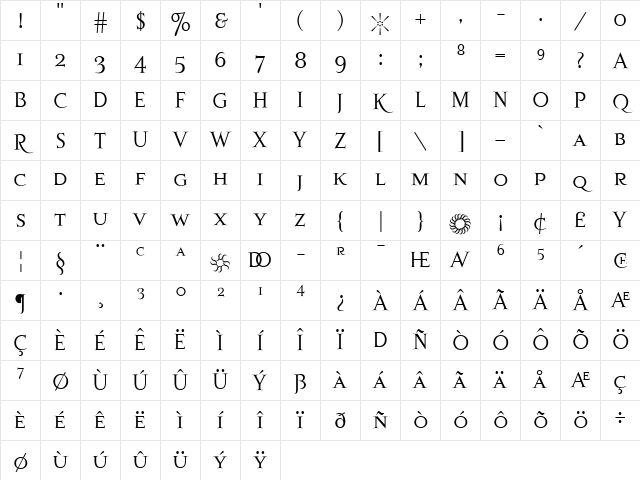
Complete Kartago Regular glyph index. Displaying only characters natively supported by Kartago Regular font.
Kartago is a composed and adaptable typeface that performs quietly and consistently across a wide range of design contexts.